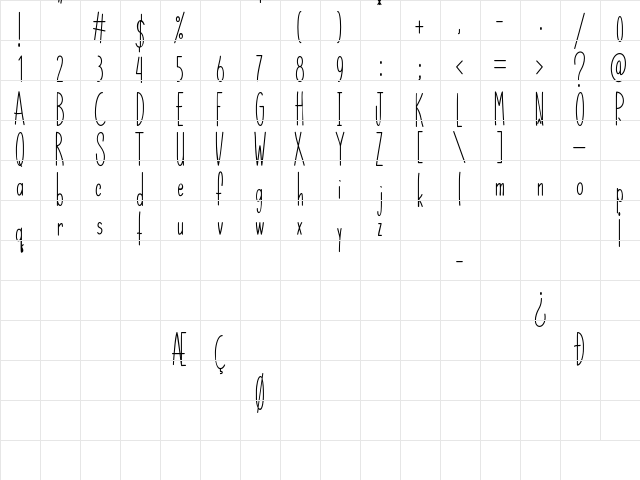
Insta Story Regular
| Designer | Aldedesign 2019 |
Design Context for Insta Story Typeface
Insta Story offers clean, dependable letterforms without strong stylistic allegiance, making it a practical choice for designers who need flexibility.